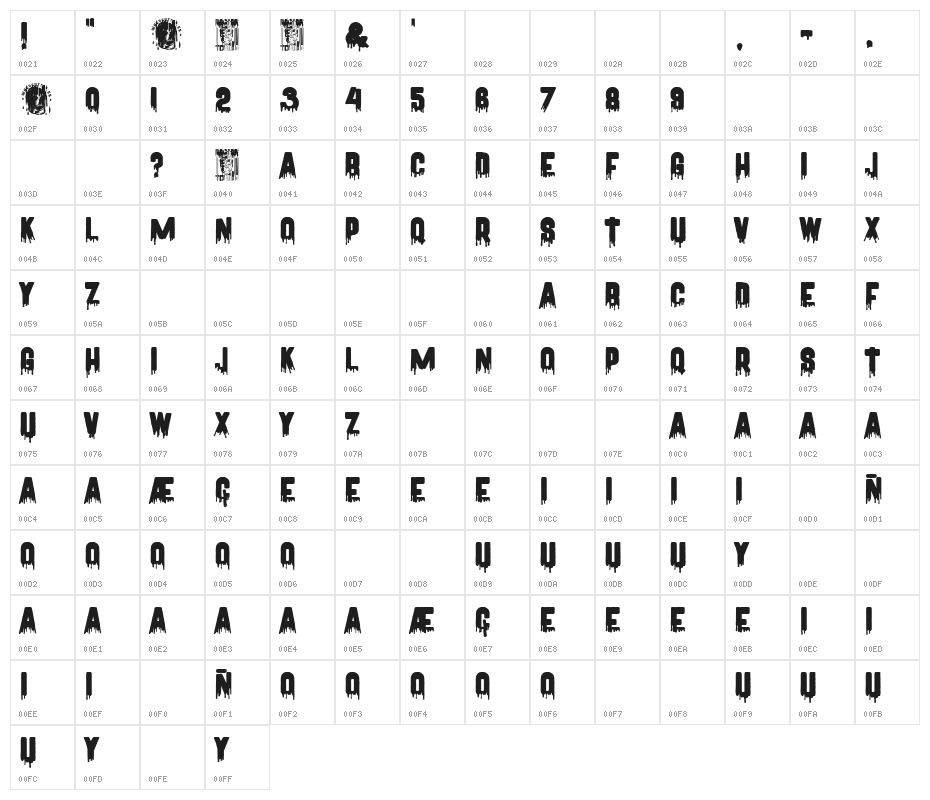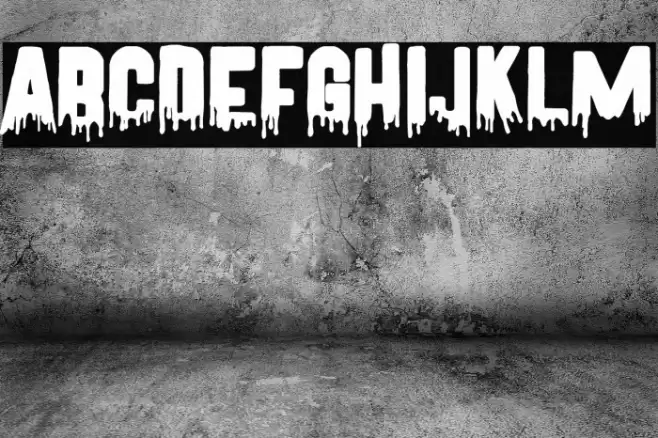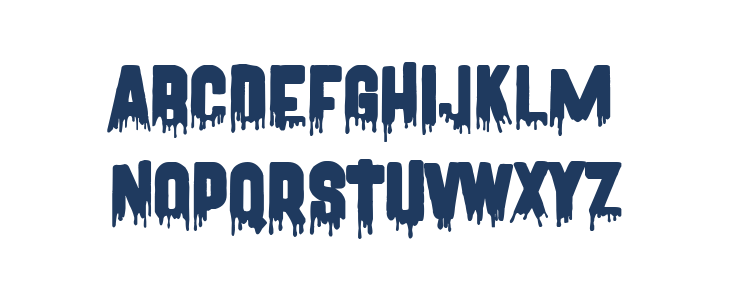
Doctor Terror Font
Doctor Terror Description
This font features a bold and dramatic design with a dripping effect that gives it a horror or Halloween-themed appearance. The letters are uppercase and have a thick, solid structure, with the bottom edges appearing to melt or drip, creating a sense of movement and fluidity. The numbers and special characters follow the same style, maintaining consistency across the character set. This font is ideal for projects that require a spooky or eerie aesthetic, such as Halloween event posters, horror movie titles, or themed party invitations. Its unique style makes it stand out, capturing attention with its bold and unconventional design.
| Proposed Projects | Halloween event posters, horror movie titles, themed party invitations. |